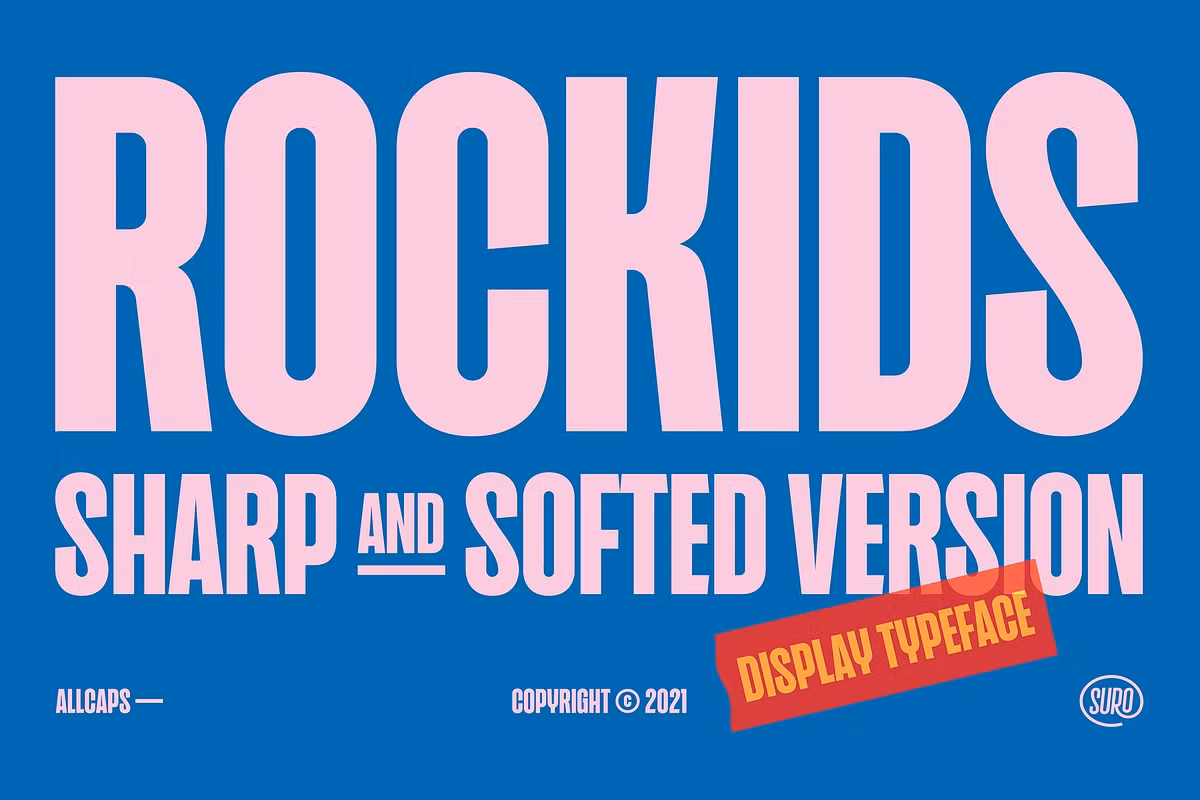
Rockids Font - Display Free Download is a bold and playful display typeface, designed to stand out with its strong, fun character. Perfect for kids’ designs, posters, branding, logos, and anything that requires an energetic and eye-catching vibe, Rockids brings a sense of fun and personality to your projects.
With its unique, quirky letterforms and vibrant style, Rockids is ideal for designs targeting a younger audience or for projects that want to convey an adventurous or playful tone. Whether you're designing for a children’s brand, event, or entertainment product, this font adds the perfect amount of boldness and whimsy.
Make a fun and bold statement with the playful design of Rockids Font!